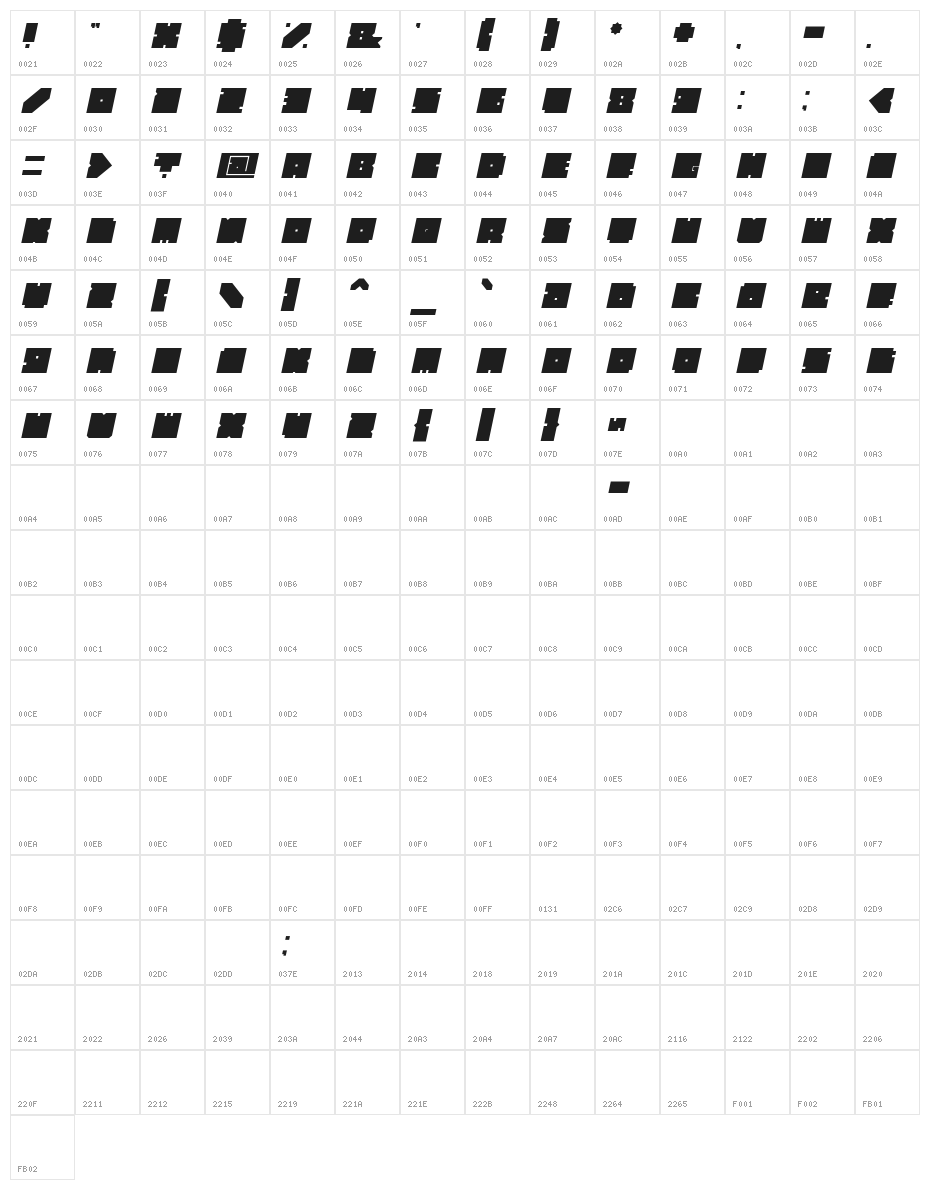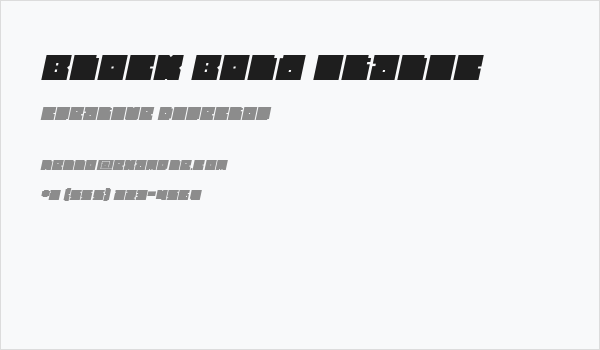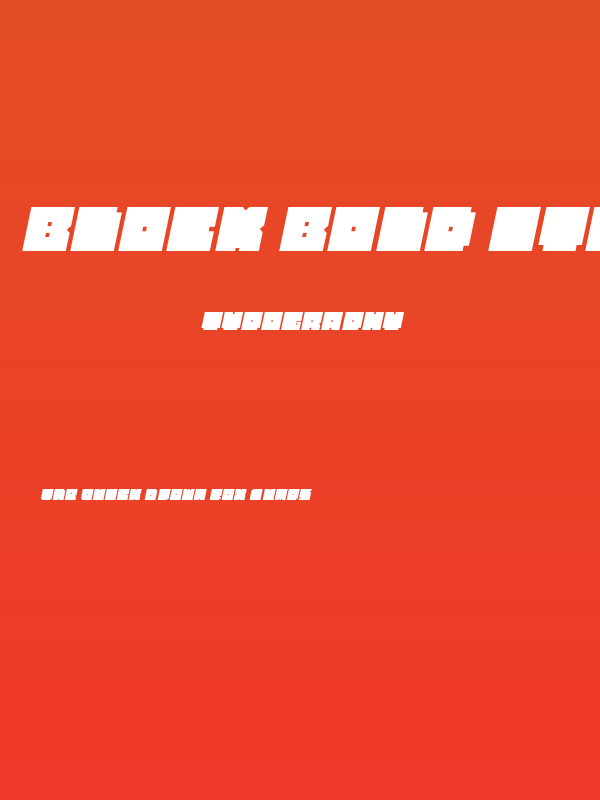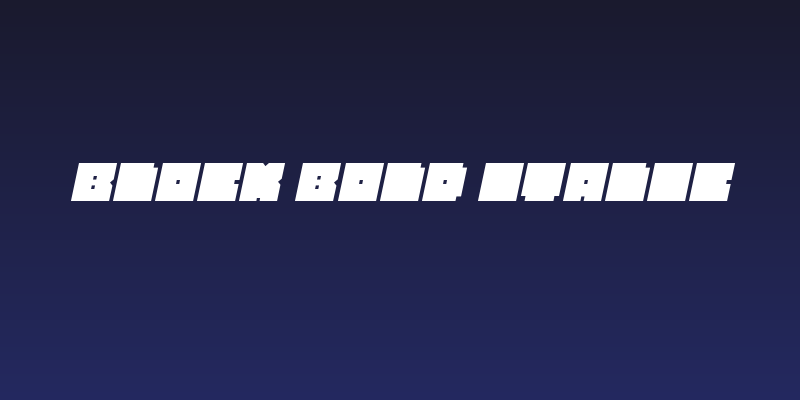
BLOCK Bold Italic Font
BLOCK Bold Italic Description
This font exhibits a bold and italicized style with a strong, impactful presence. The characters are designed with a blocky, geometric structure, giving them a modern and assertive look. The boldness of the font is emphasized by its thick strokes and angular edges, creating a sense of strength and stability. The italic slant adds a dynamic and forward-moving energy, making it suitable for attention-grabbing headlines or titles. The spacing between characters is tight, enhancing the compact and cohesive appearance of the text. This font is ideal for projects that require a bold statement, such as posters, advertisements, or branding materials.
| Proposed Projects | Ideal for posters, advertisements, branding, and any project needing a strong visual impact. |